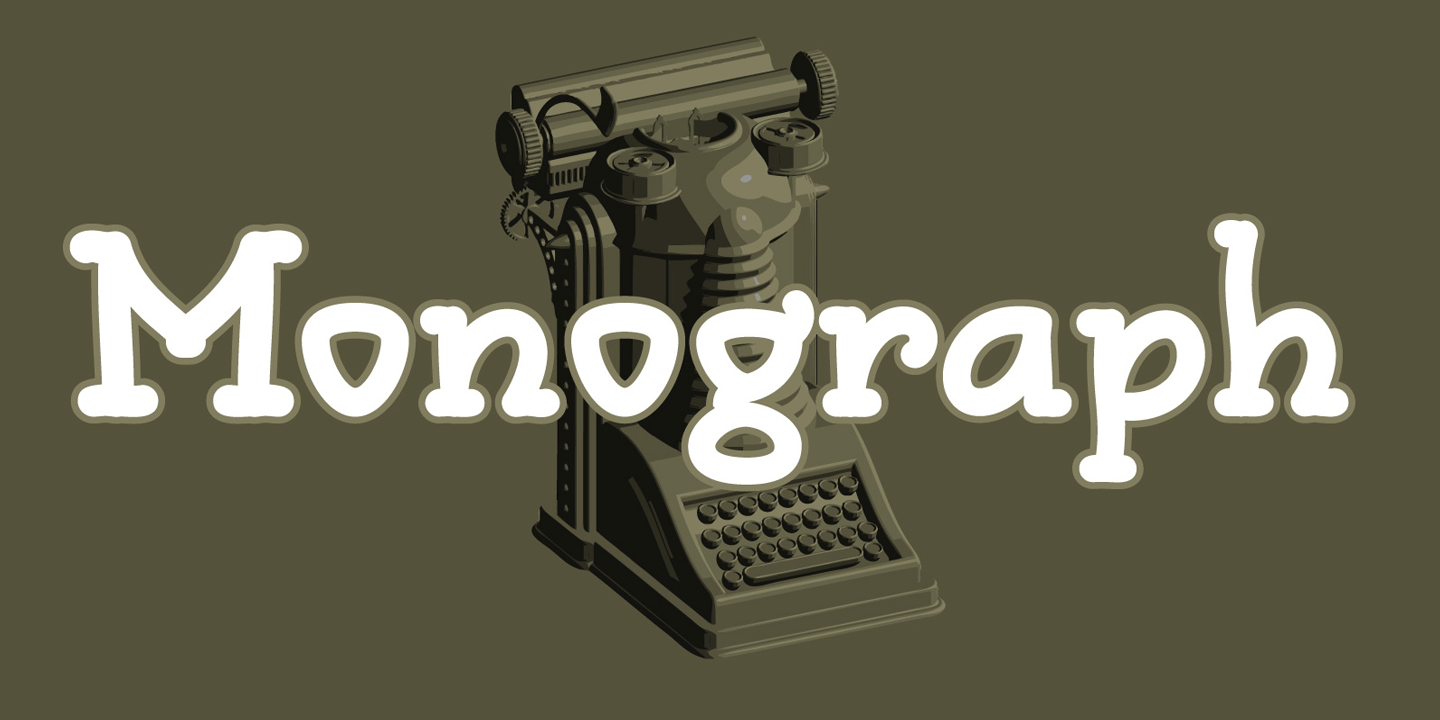
Monograph
About Monograph
For me, Monograph conjures ancient typewriters, telephone switchboards, vintage office machines past visions of the future. As though it were drawn with the rounded nib a of a Speedball ?B? style pen, the soft curves and rounded serifs speak of a gentler…